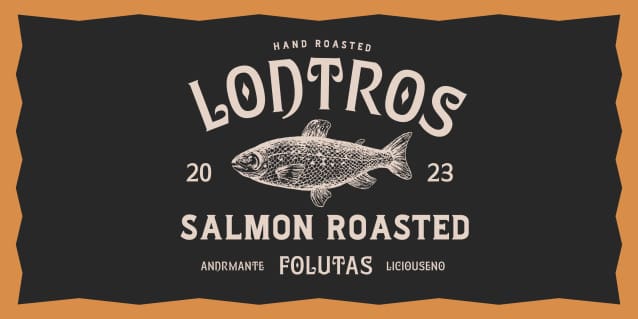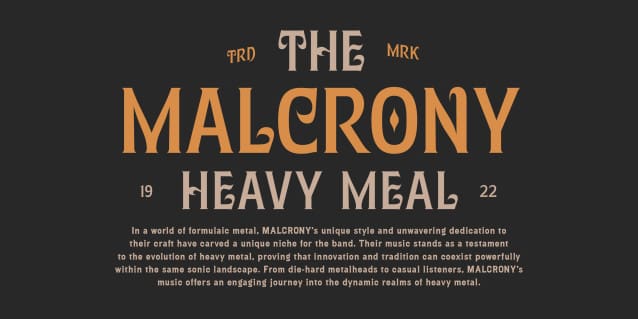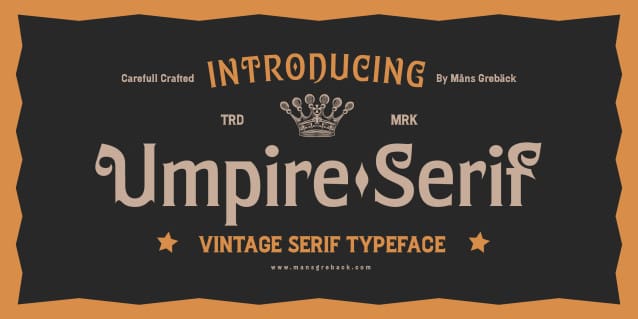
Umpire Serif Font
Umpire Serif Font is a heavy sans-serif immersed in Victorian grandeur. Every letter carved is a testament to its solid and heavy foundation, a parade of pomp and a symbol of steadfastness.